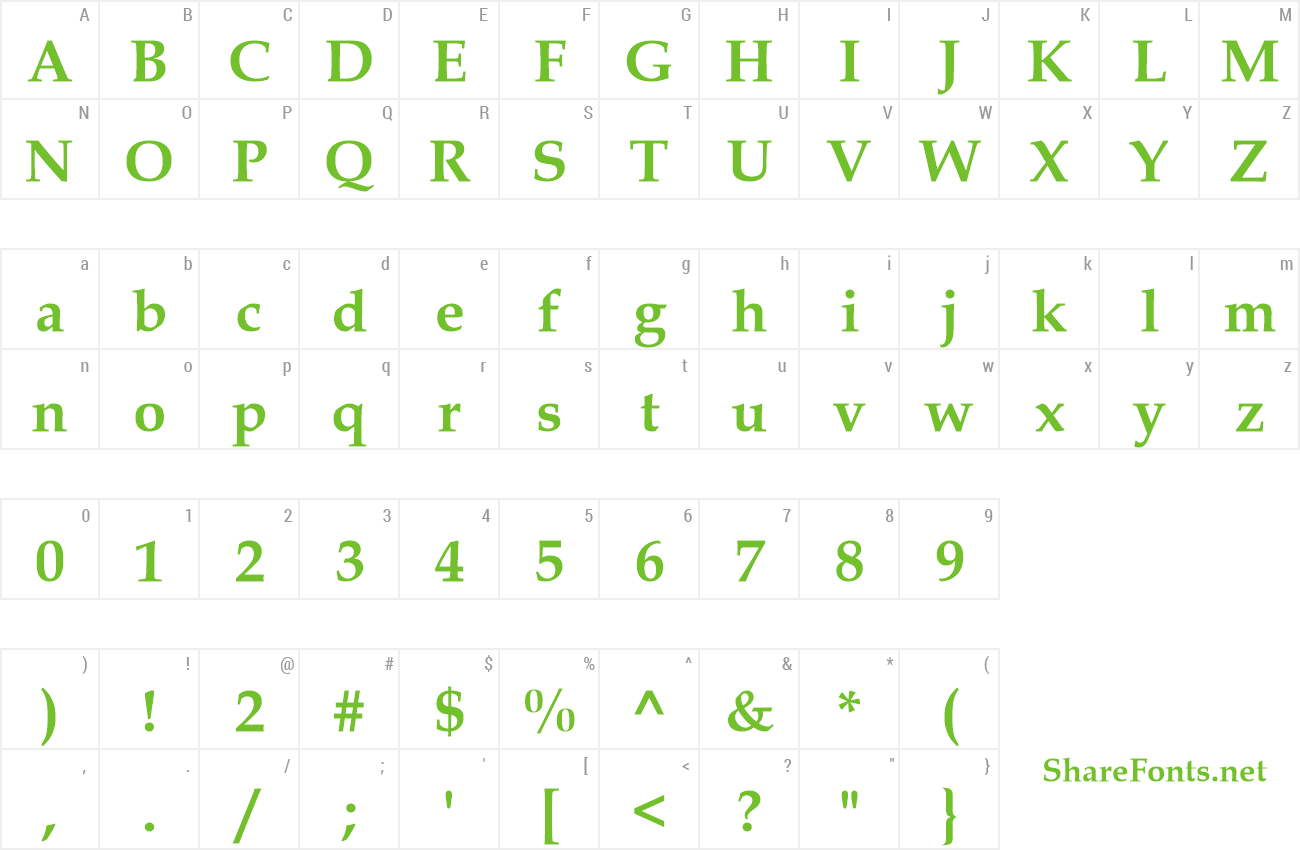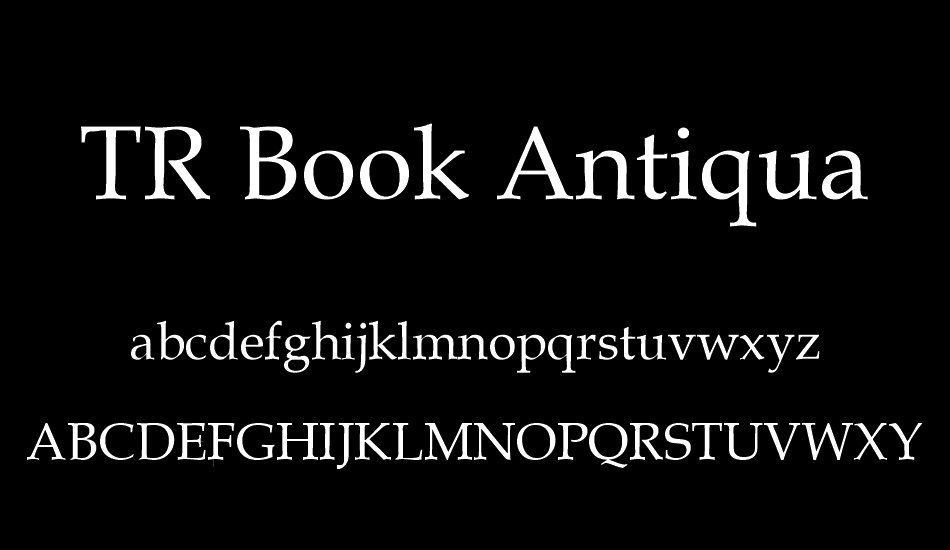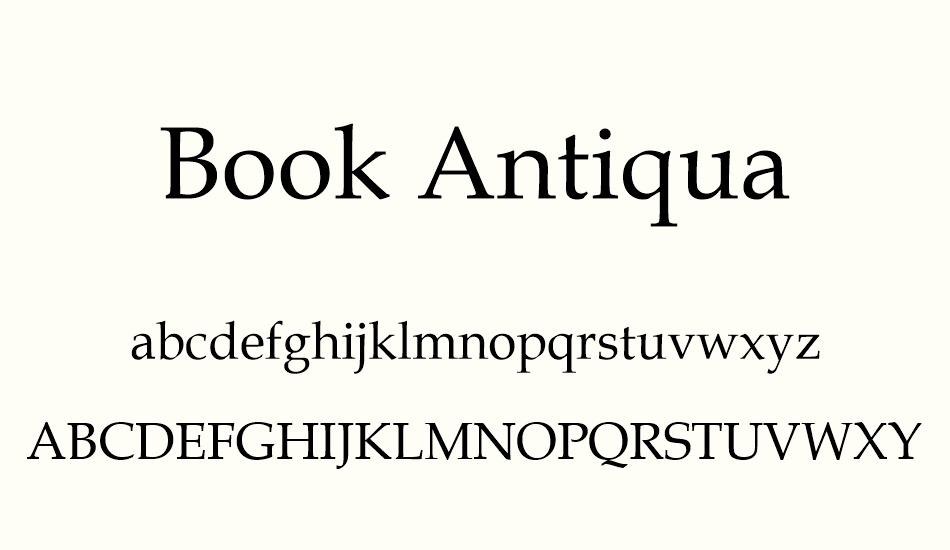
Book Antiqua Font Download - Web book antiqua font free download. Book antiqua is very beautiful for design purposes. But you need to buy. Web book antiqua font is a serif typeface designed by monotype corporation. Web license microsoft fonts for enterprises, web developers, for hardware & software redistribution or server installations; Here is a zip file through which you can download free book antiqua texture for private projects. Graphic designers use the font in projects. Click on the below link to download its free version which can use free for personal use. Web to free download, go to our download font button. Web book antiqua font free download.